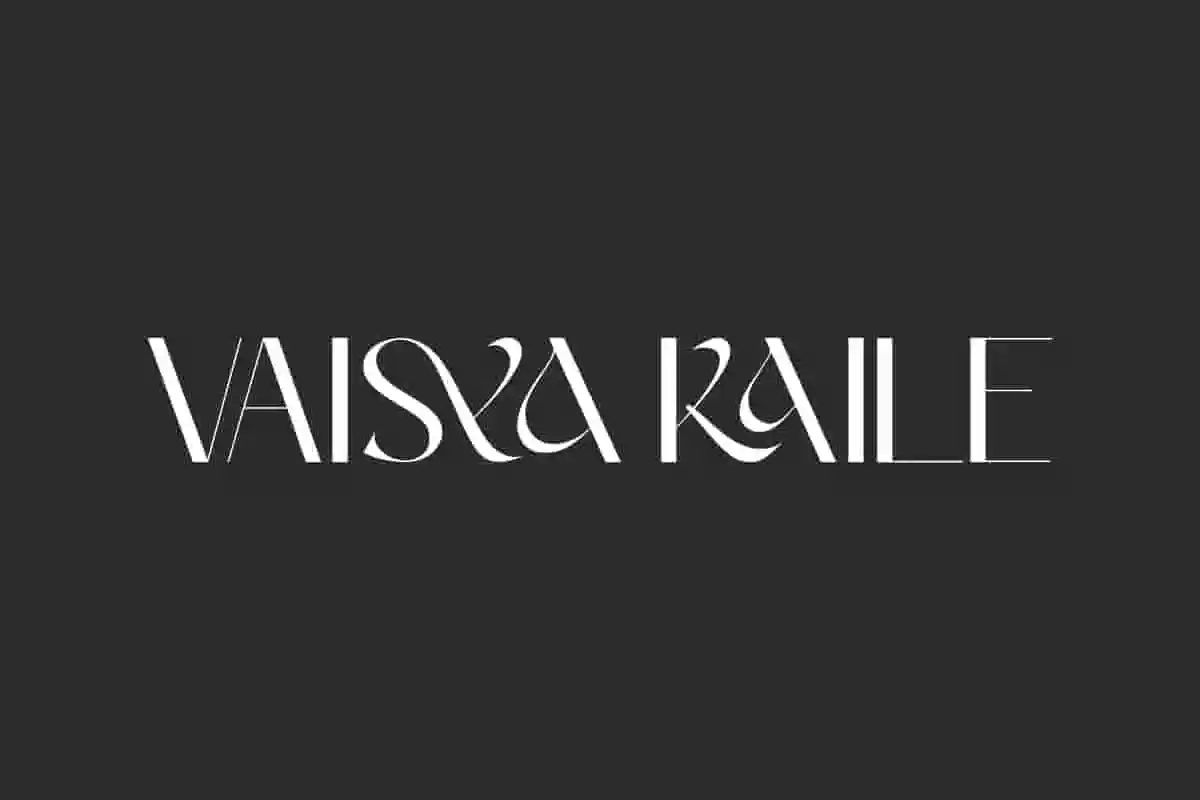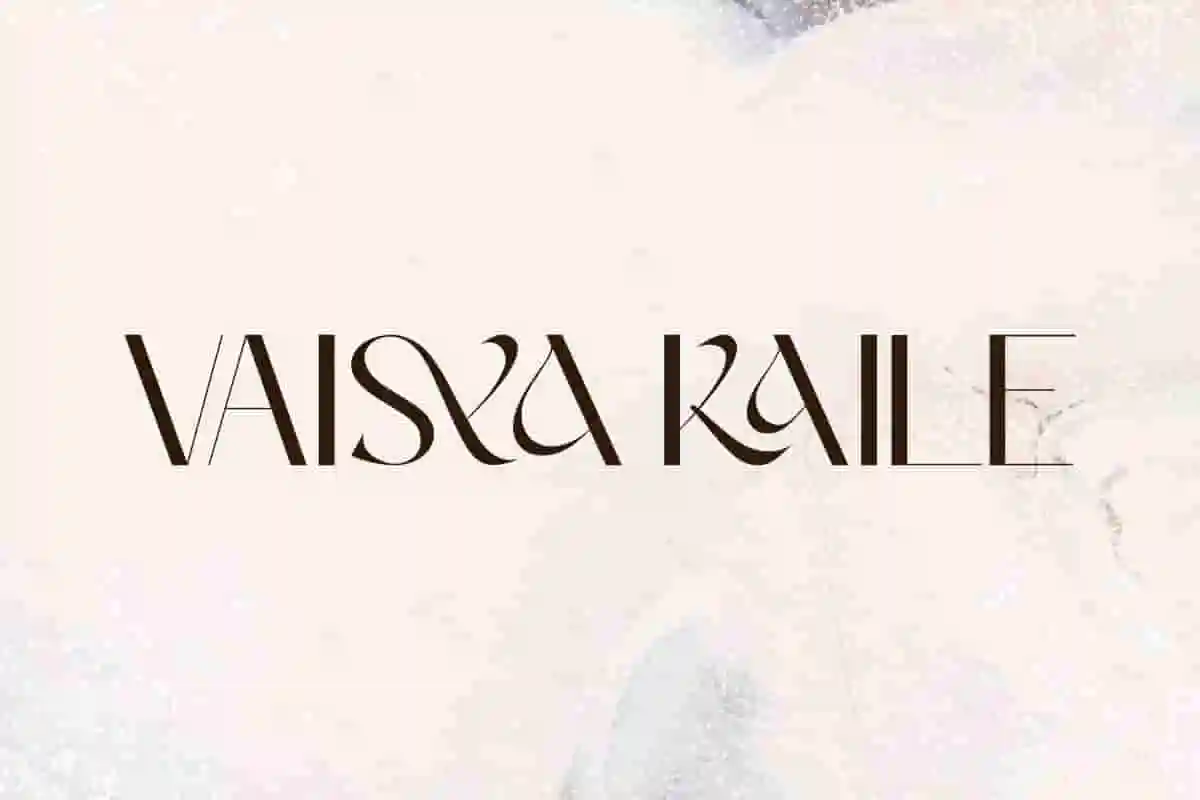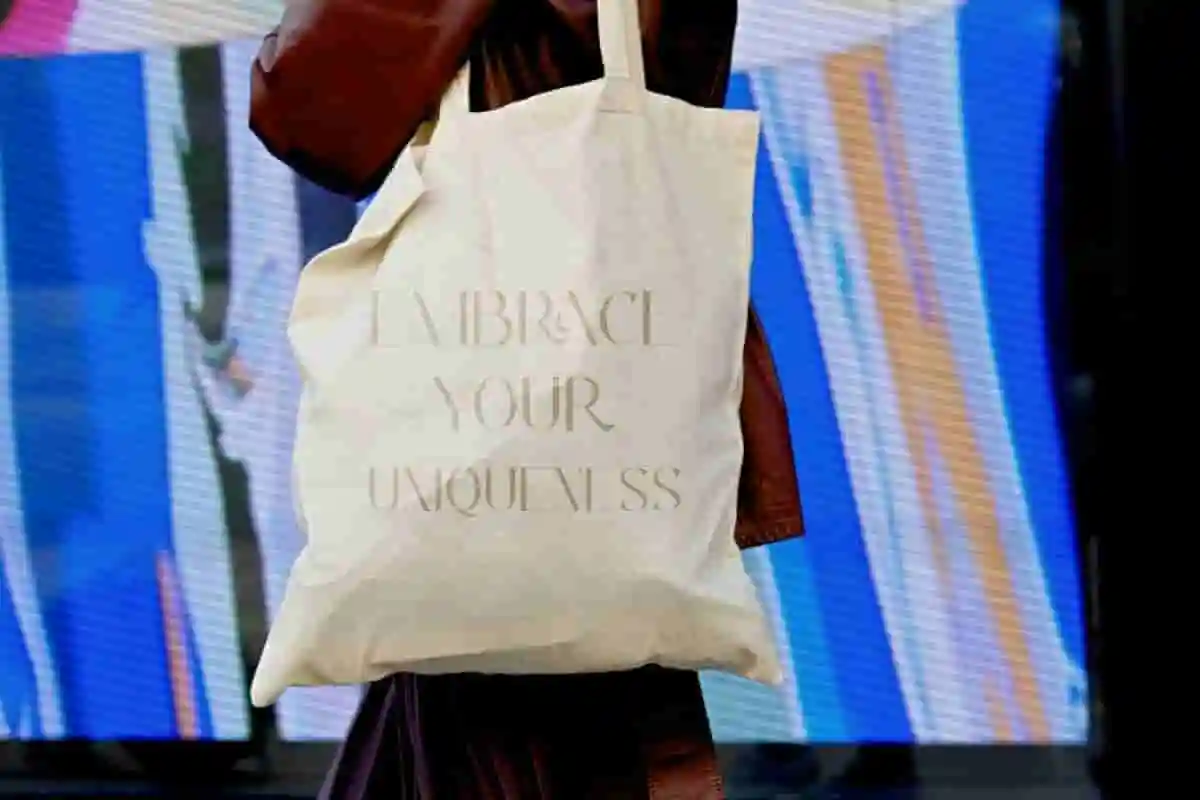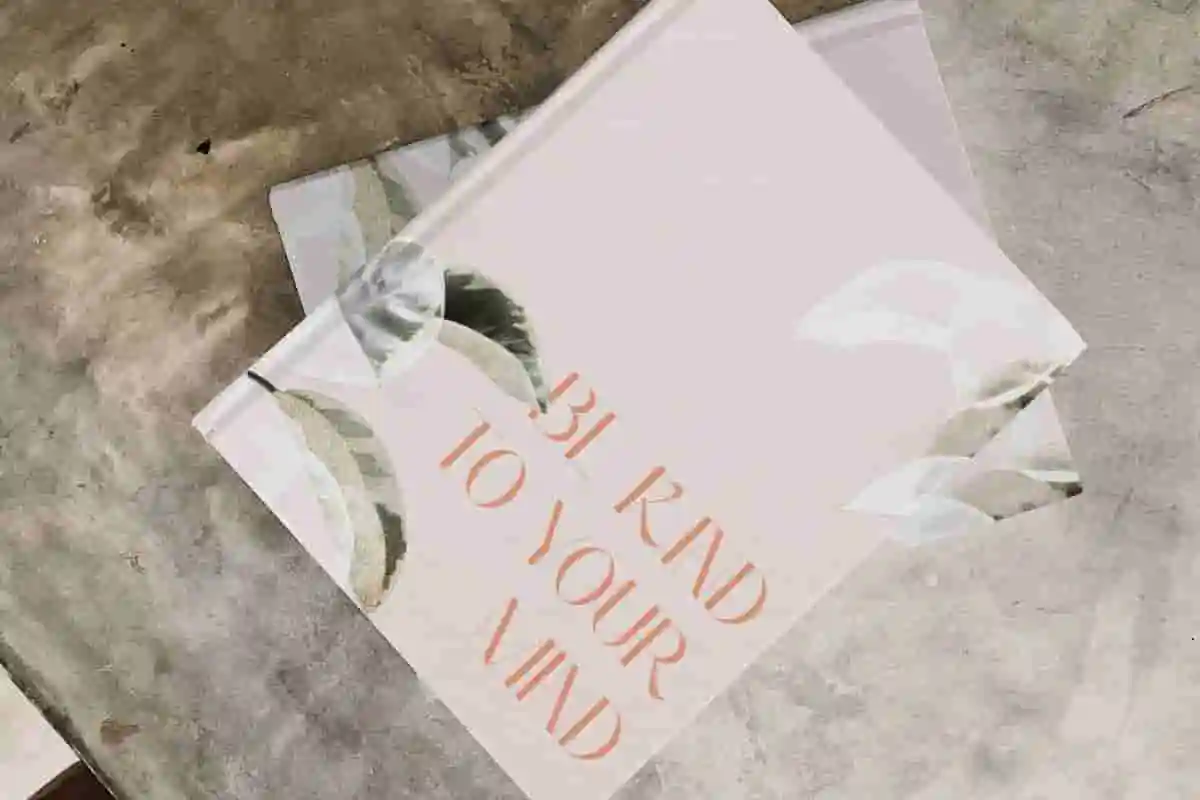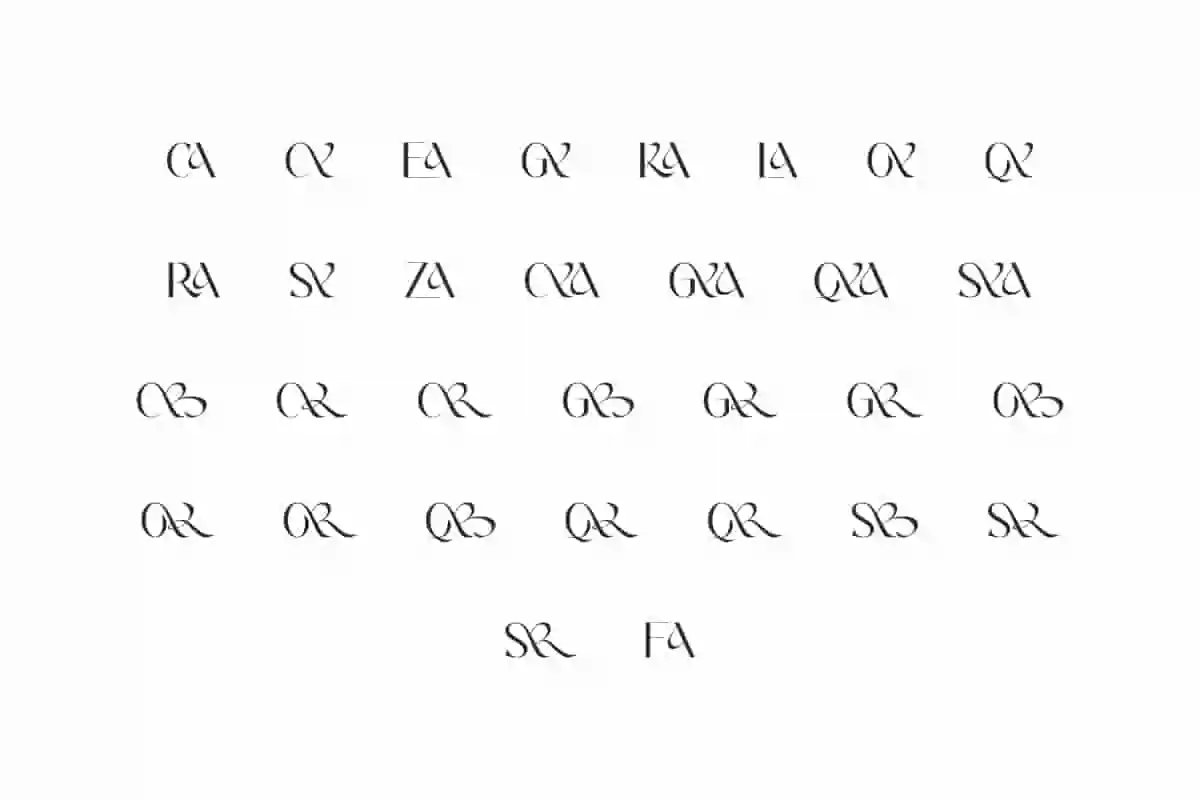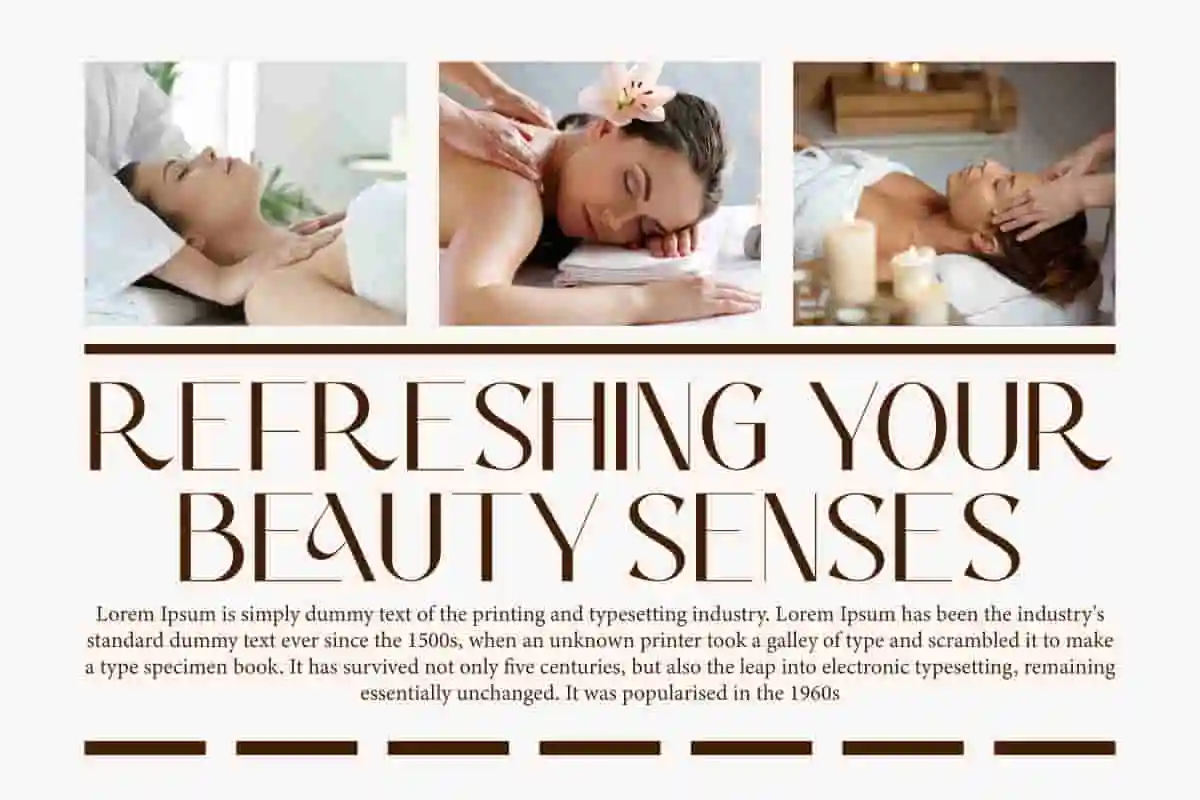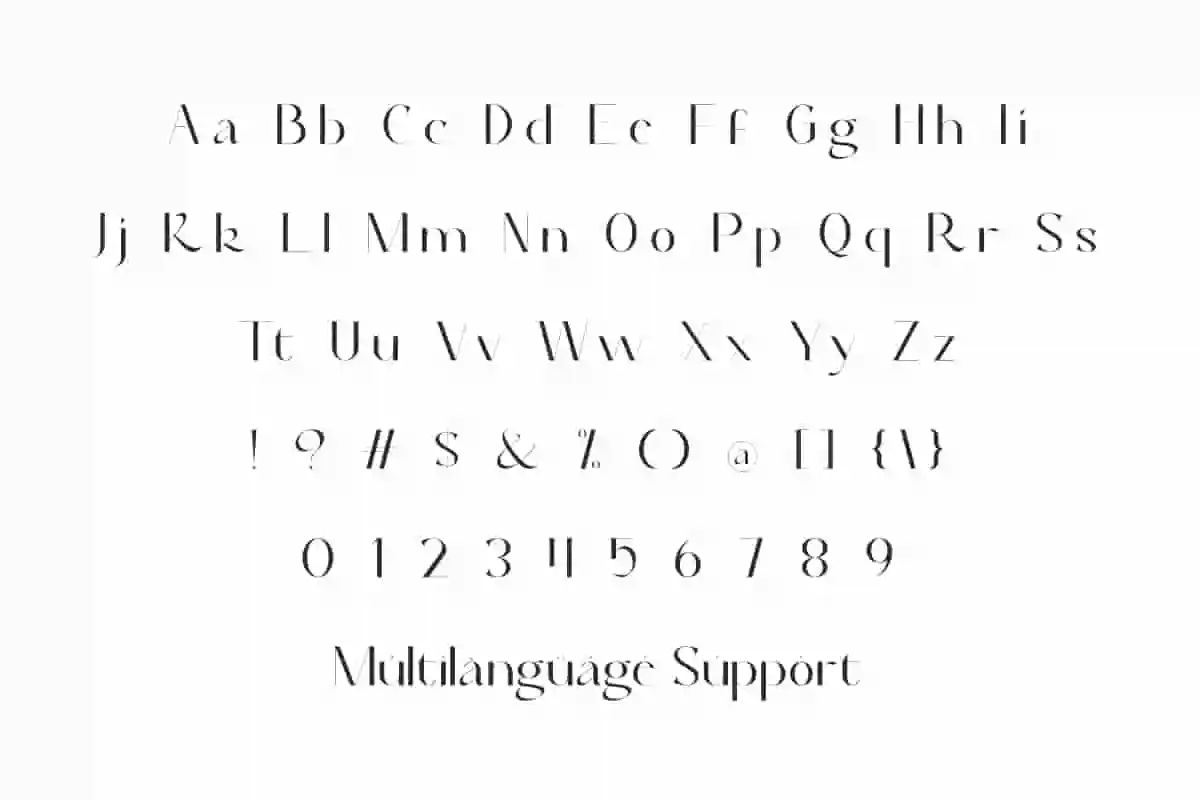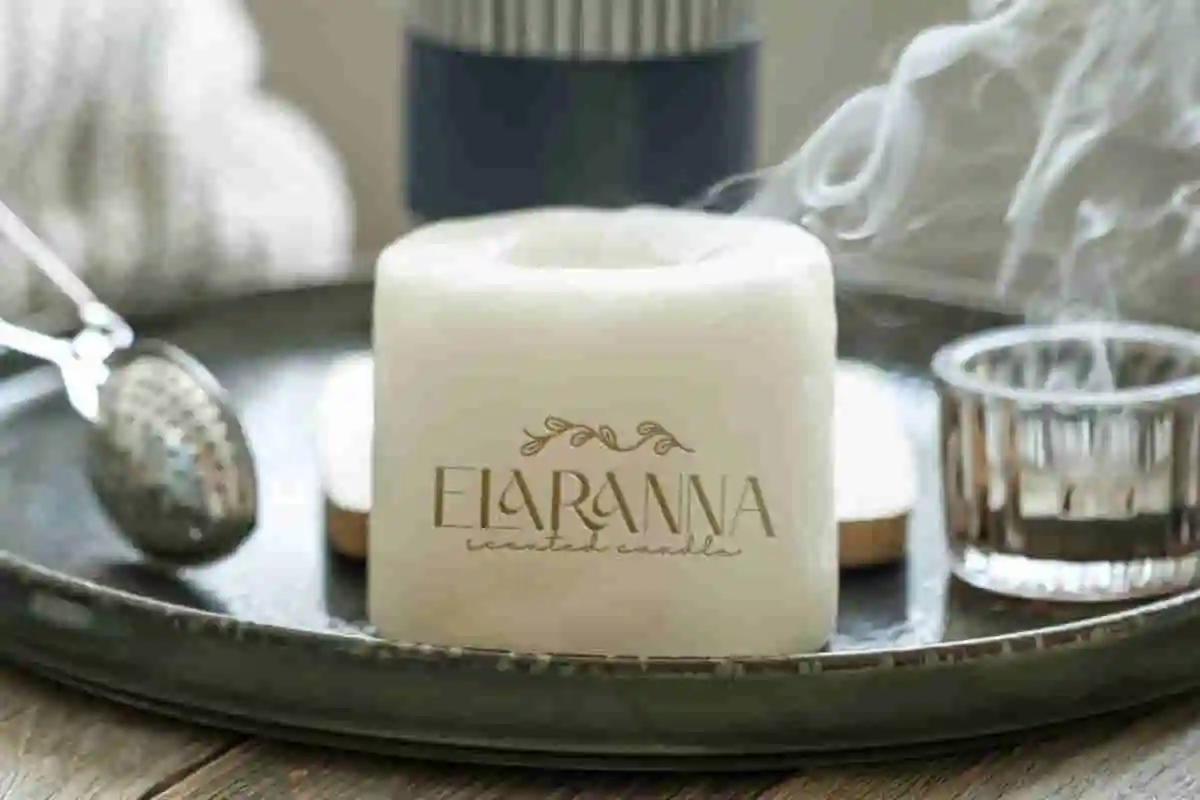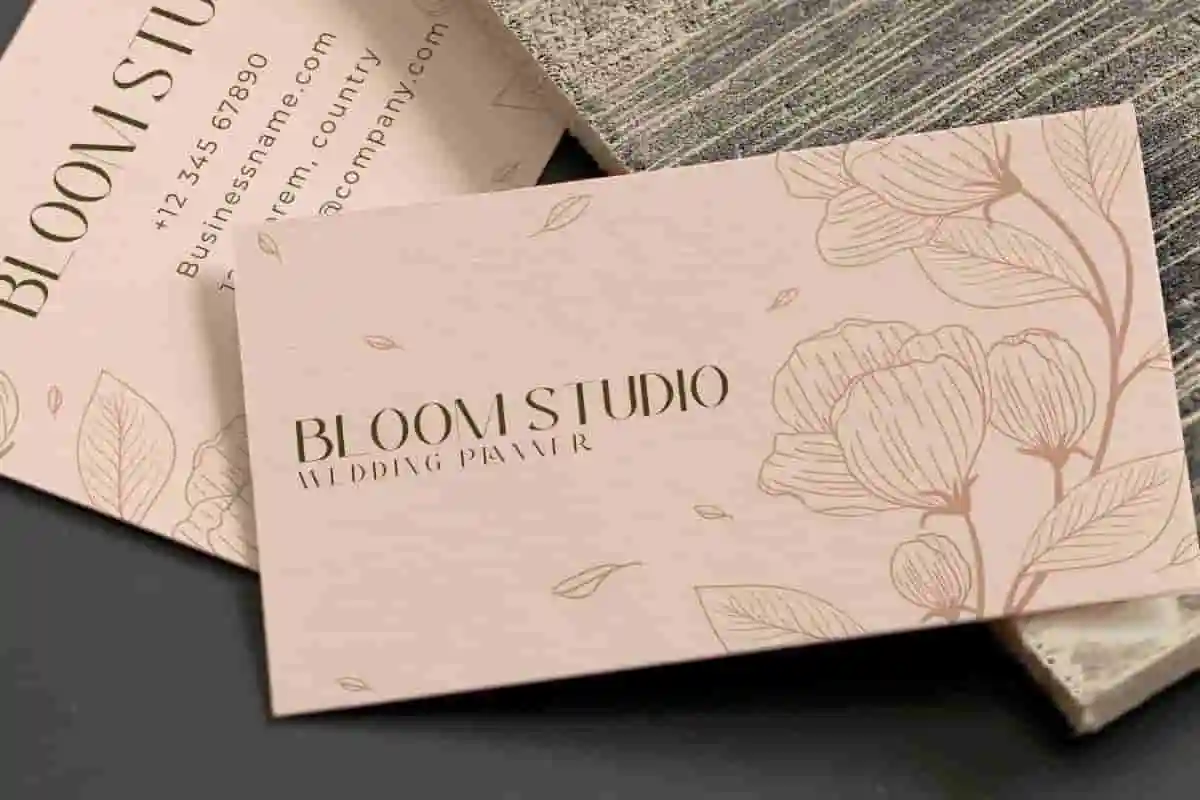
Vaisya Kaile Font is an elegance sans serif font with modern decorative elements. The sleek letterforms and artistic curve variations give an exclusive impression. This font will be perfect for any projects, can be used for advertisement, brand image, custom design, invitation, label, layout design, quotes, stationery, template design, website, and more!
Vaisya Kaile Font includes full set of Uppercase and Lowercase Basic Characters, Numerals, Punctuation, Symbol, and Ligature character. Making it a perfect choice for a variety of fields, such as accessories and jewelry, beauty product, event or wedding organizer, fashion, florist, furniture, real estate, spa salon, etc.